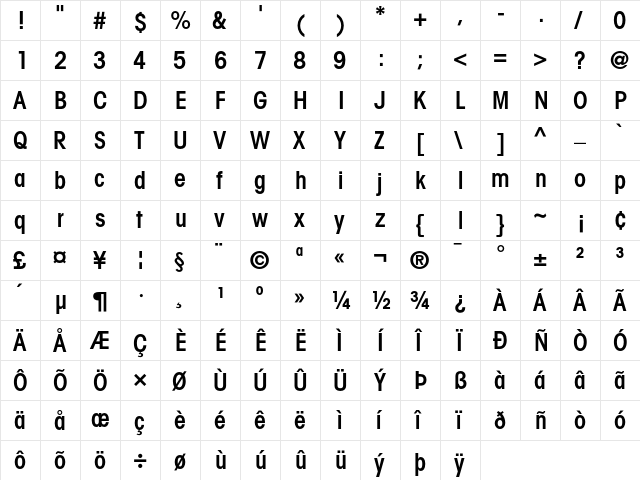
AvantGarde Regular
AvantGarde offers clean, dependable letterforms without strong stylistic allegiance, making it a practical choice for designers who need flexibility.
Pro Tip: Use AvantGarde in both headline and body roles to test its range before committing to a single application.